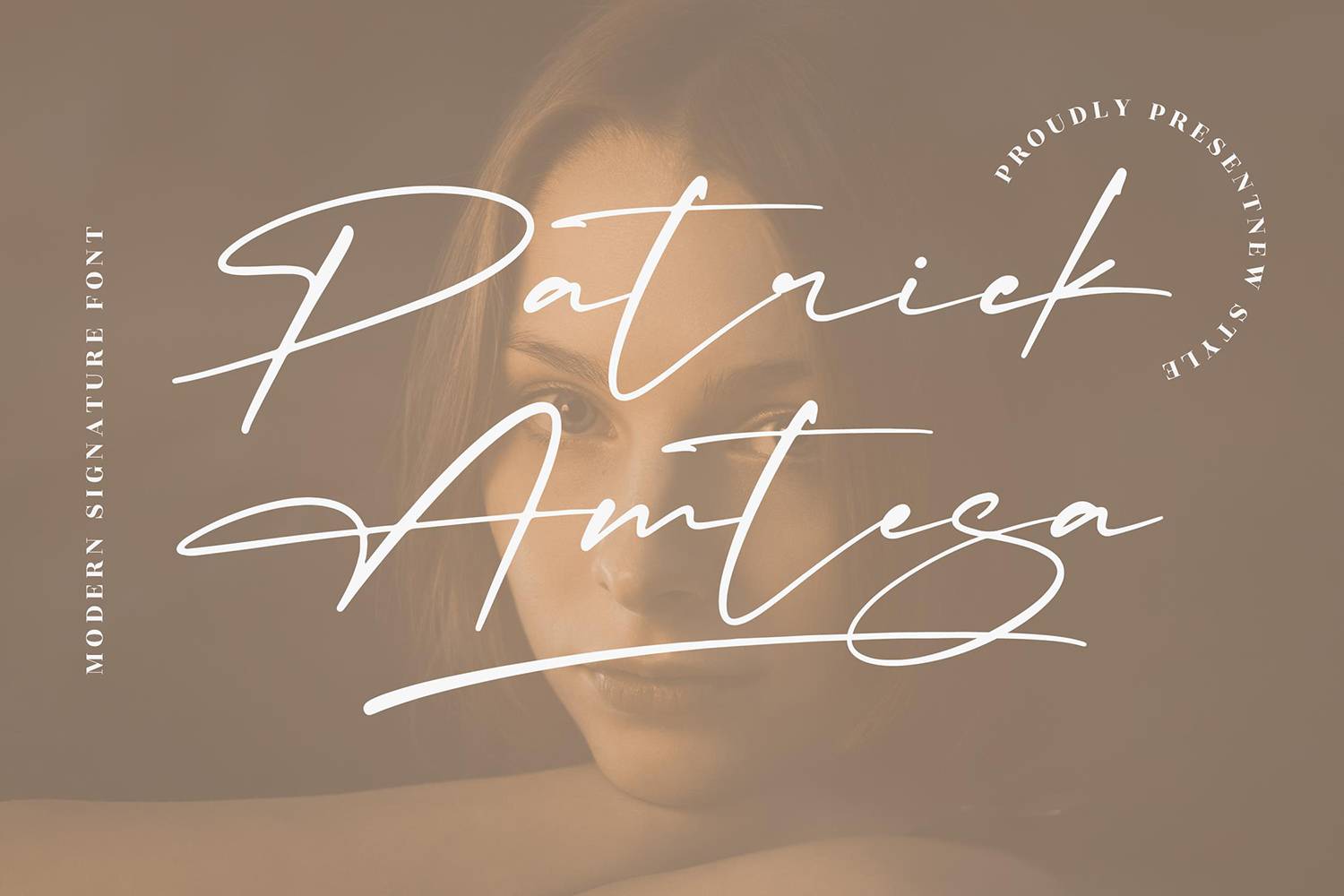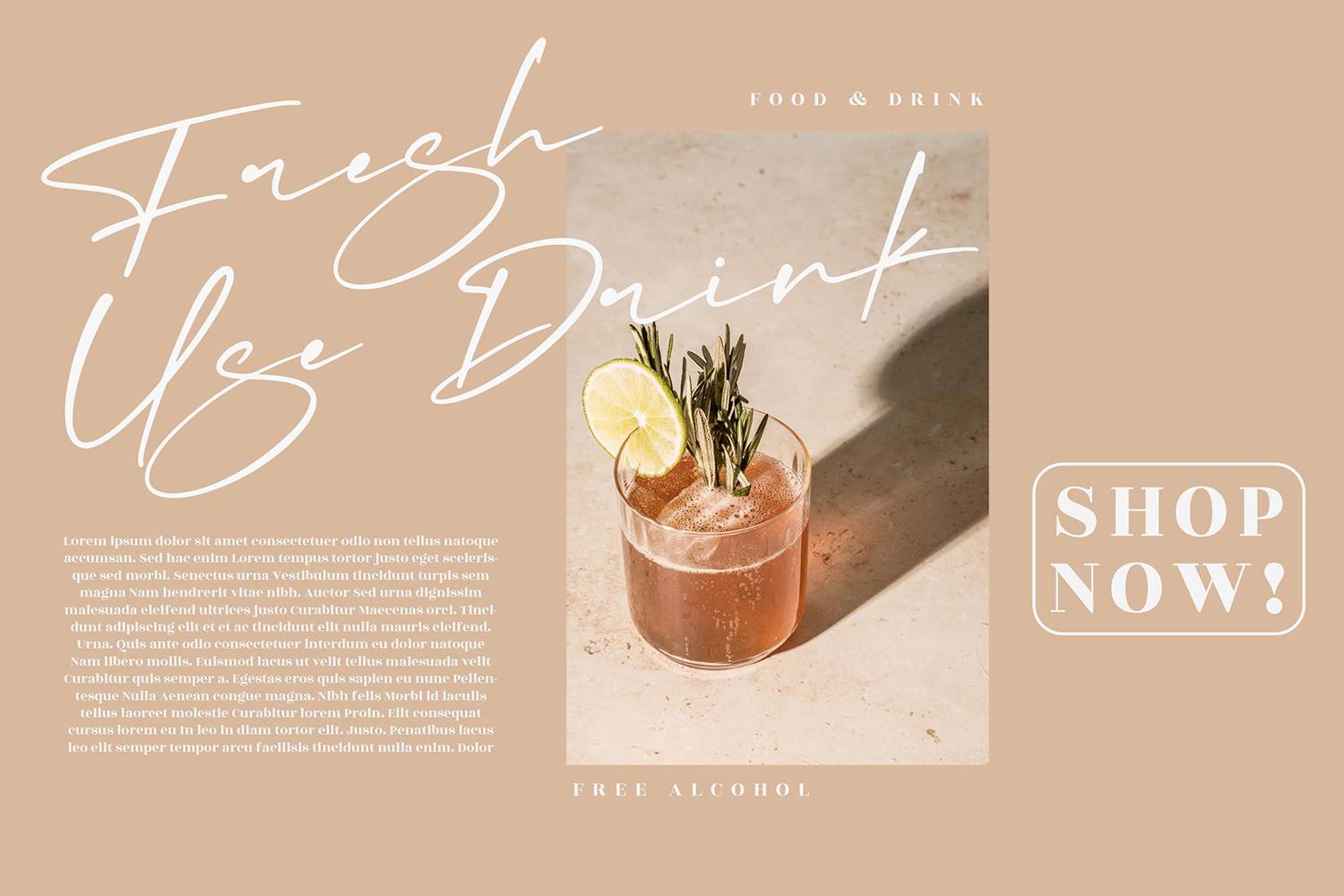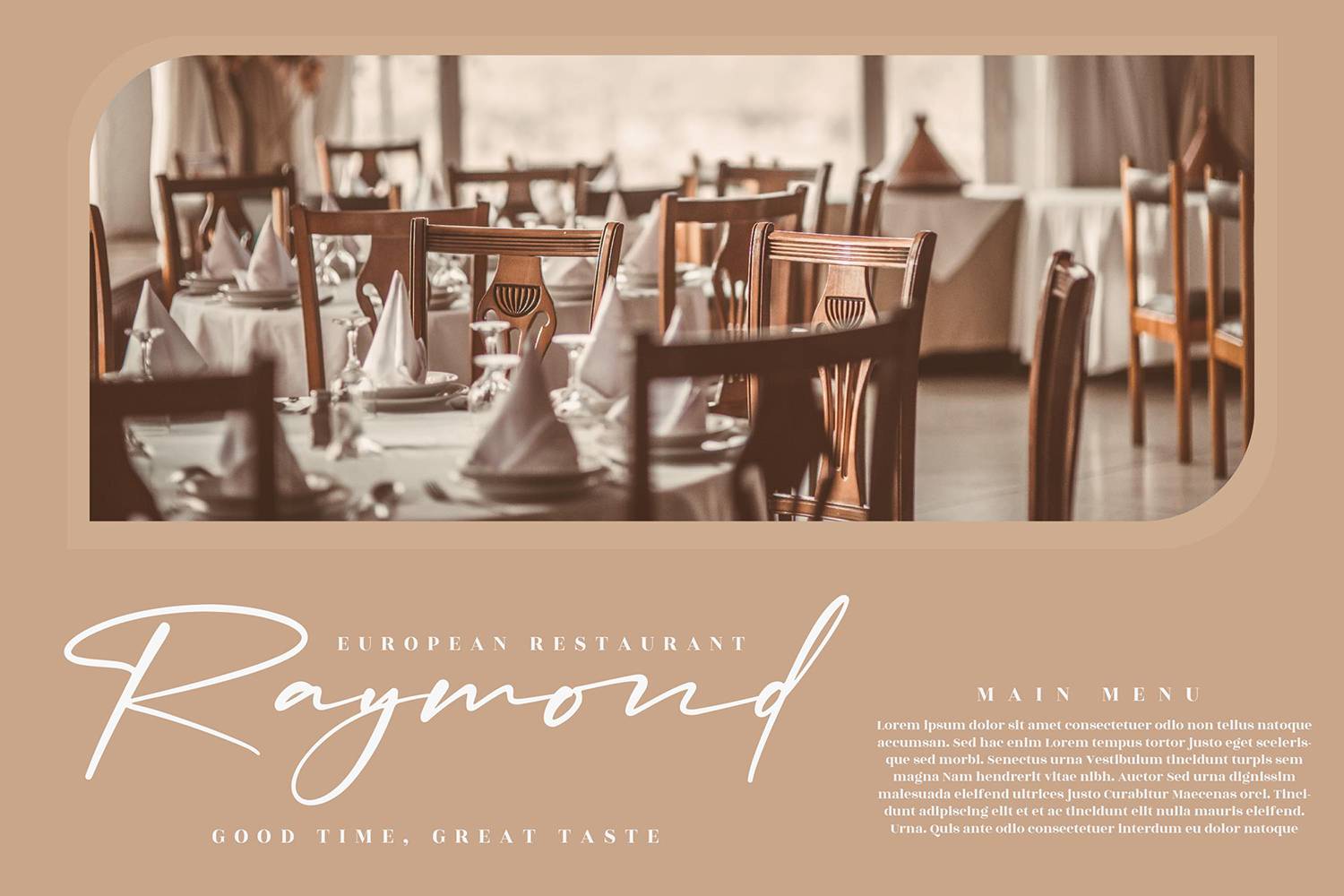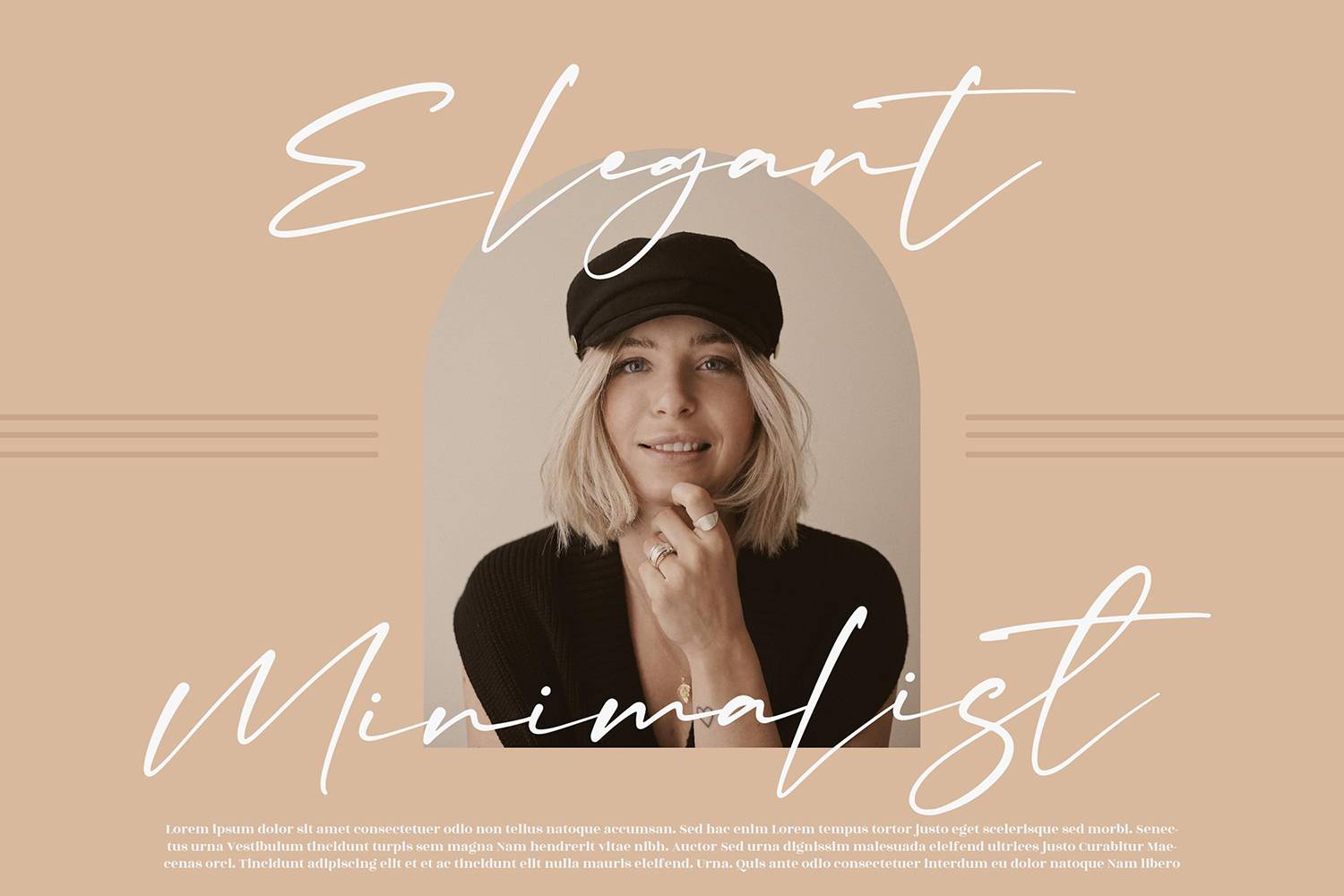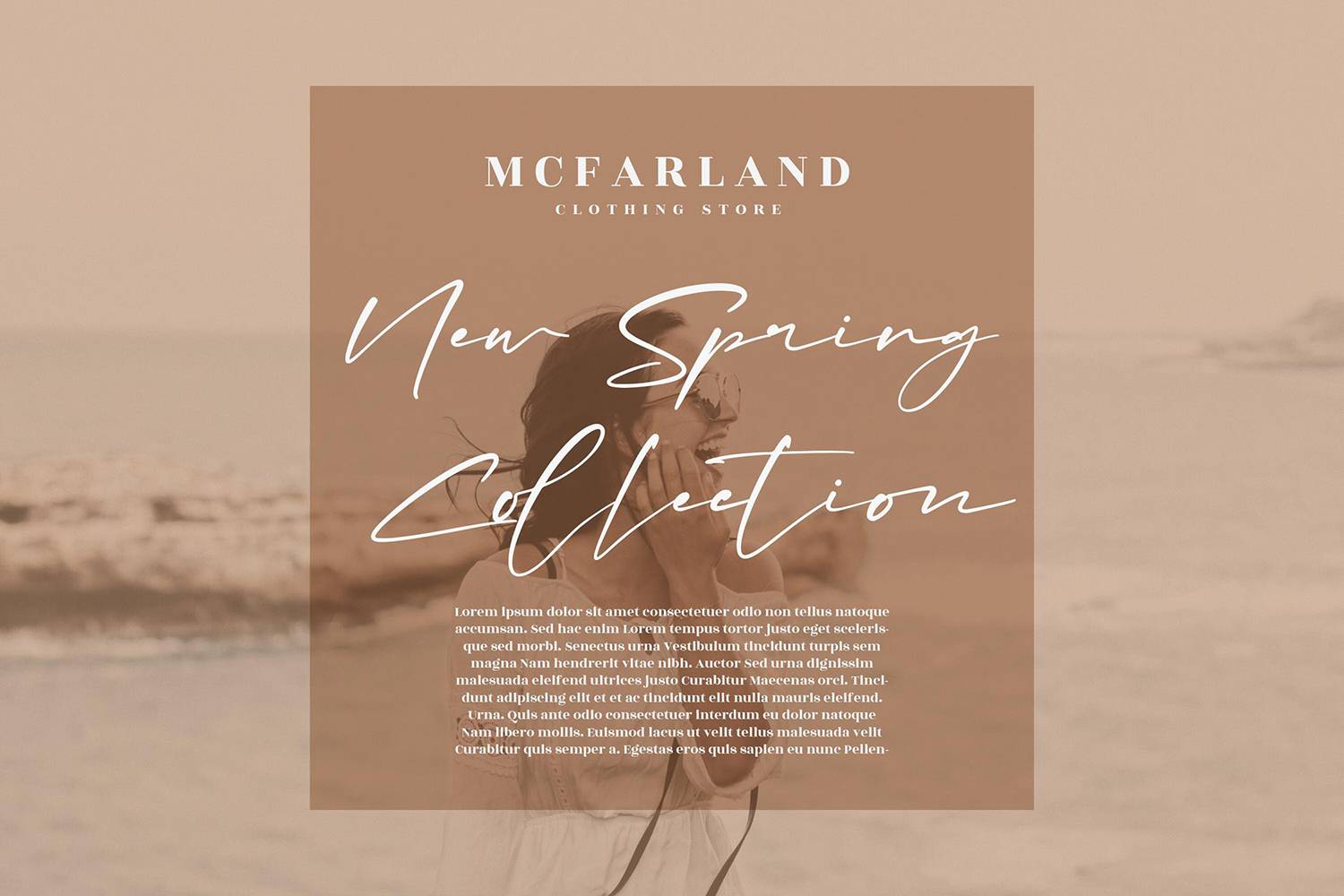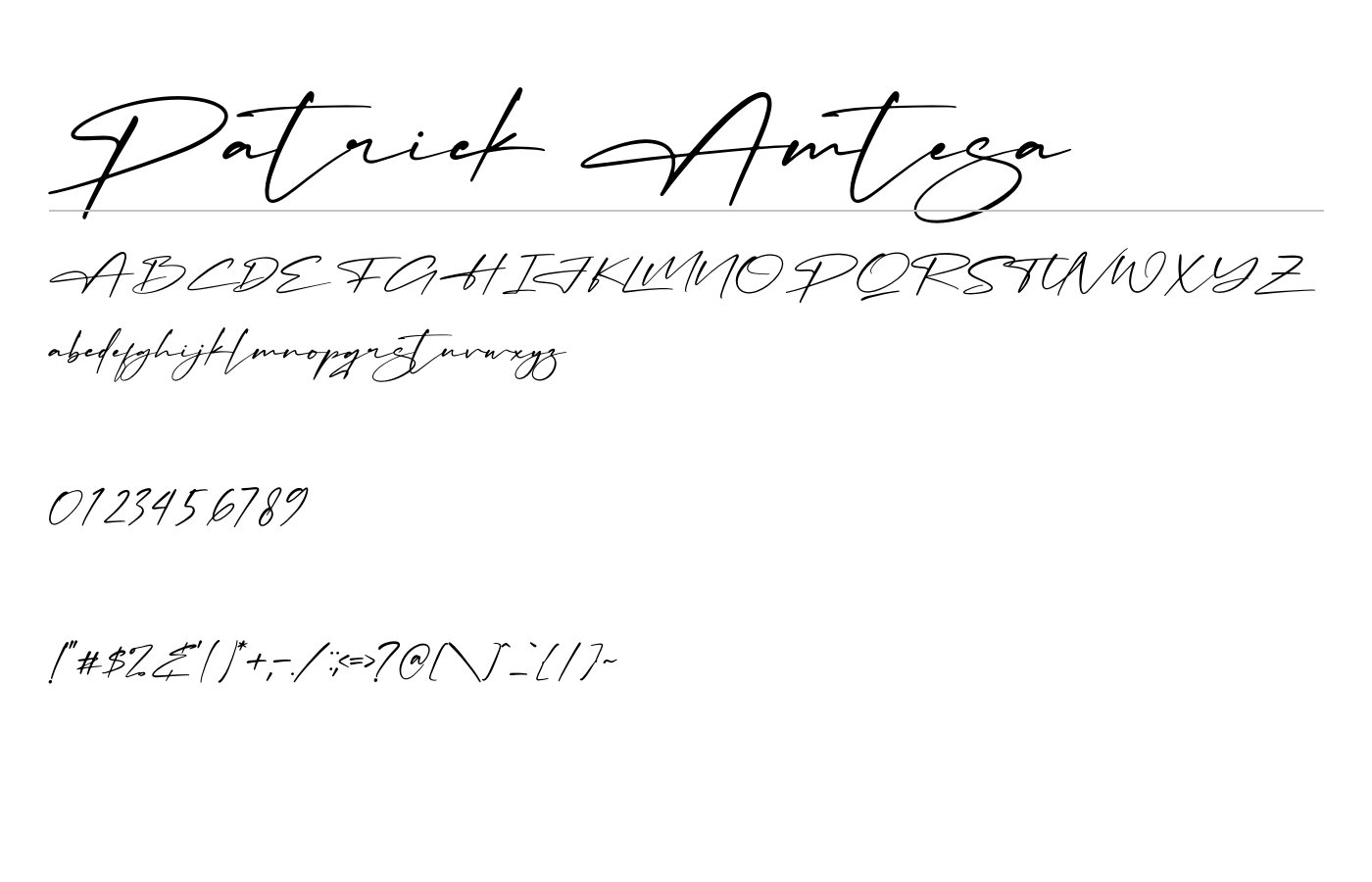
Patrick Amtesa is a delicate, elegant script font with a handwritten feel, featuring slender, graceful strokes that flow smoothly across the letters. Its light weight, high contrast, and distinctive loops give it a refined and stylish personality, making it an excellent choice for luxury branding, invitations, and artistic logos where a personal, sophisticated touch is desired. This font works beautifully in headlines and display uses, adding a sense of charm and creativity without overwhelming the design.
Patrick Amtesa Font
About Patrick Amtesa Font